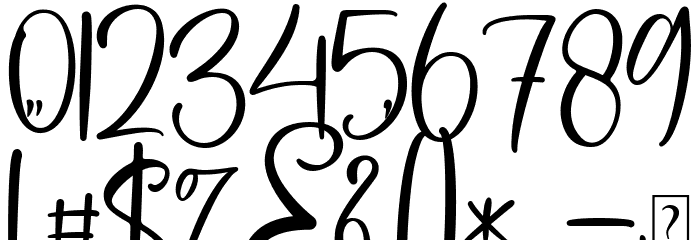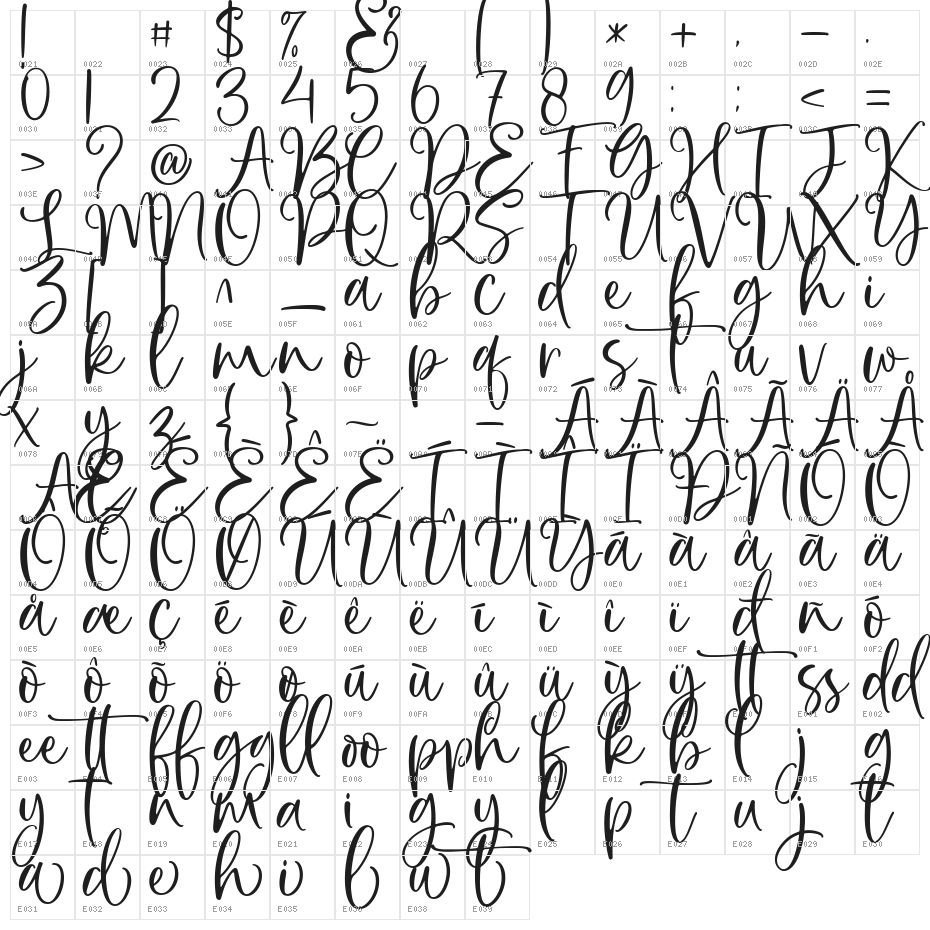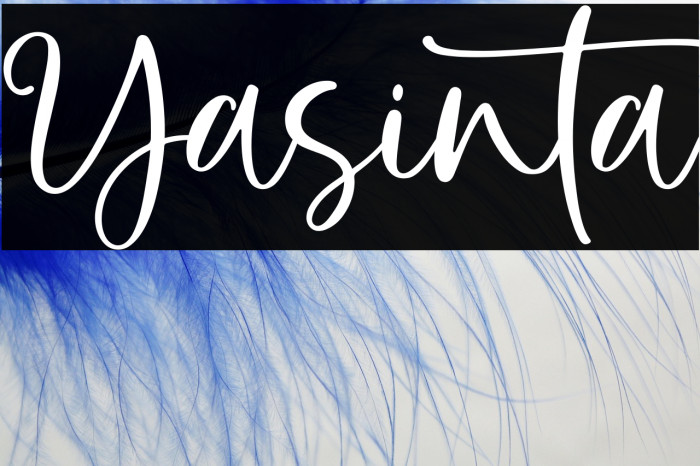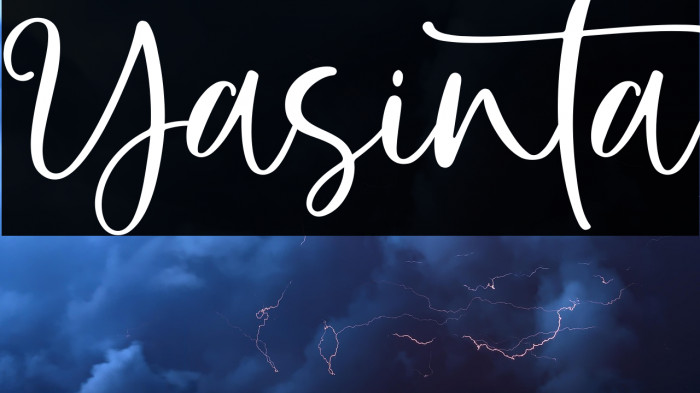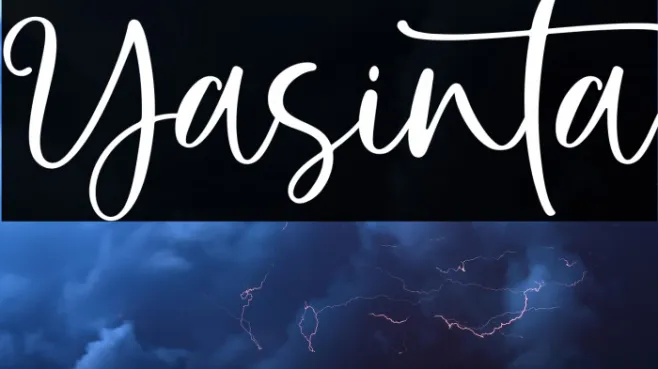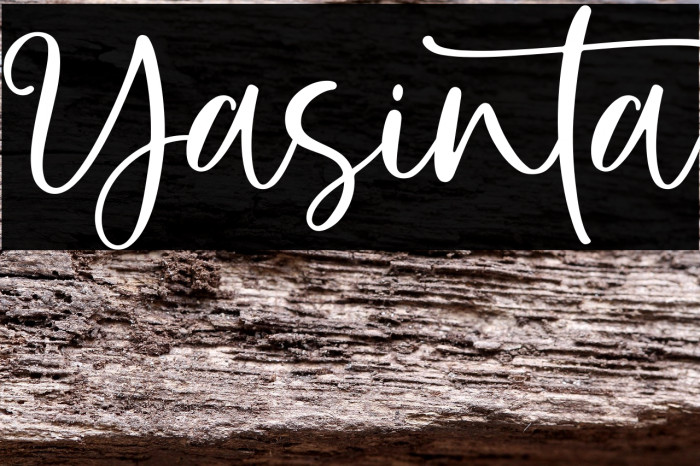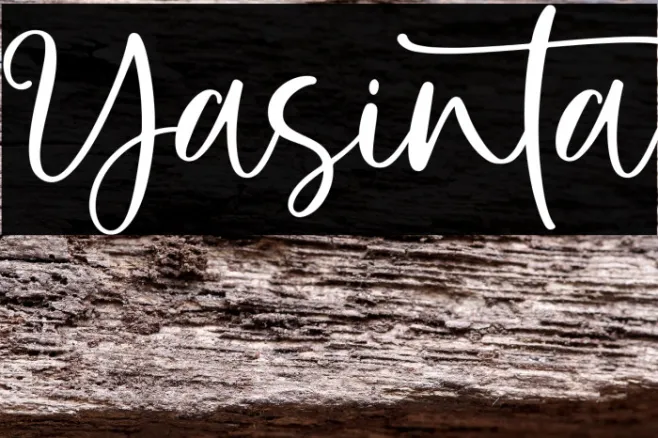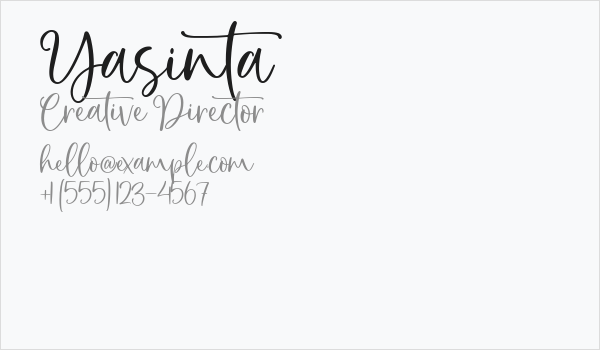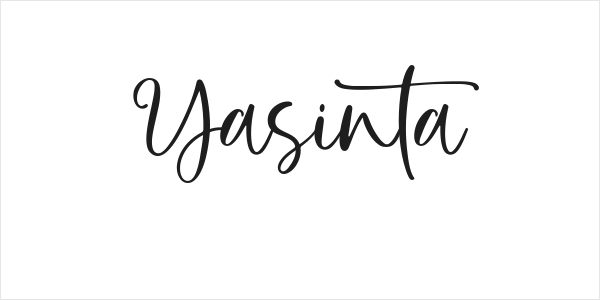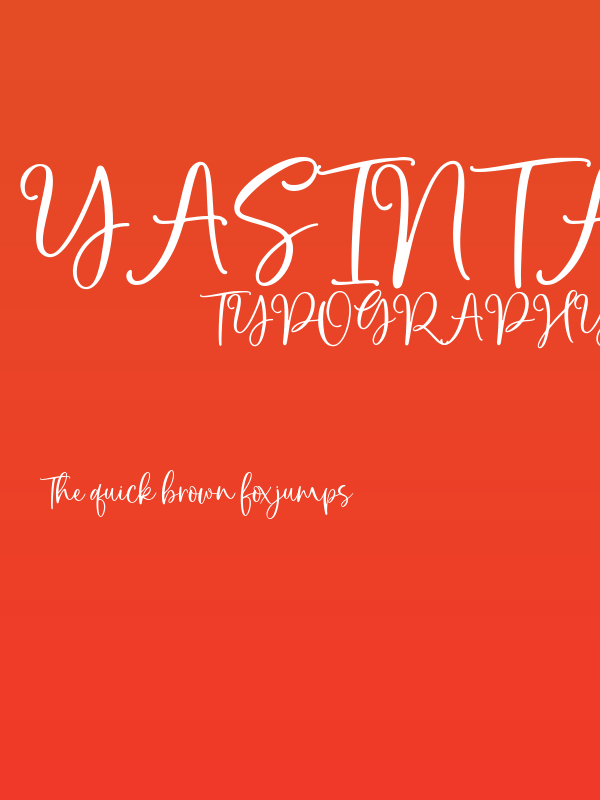
Yasinta Font
Yasinta Description
This font features a lively and expressive script style, characterized by its flowing, interconnected letters and elegant curves. The uppercase letters exhibit a graceful, looping design, while the lowercase letters maintain a consistent fluidity, enhancing the font's overall charm. The numerals are crafted with a similar flair, ensuring a cohesive look across all characters. Special characters are thoughtfully integrated, maintaining the font's whimsical and artistic appeal. The strokes are smooth and consistent, offering a sense of movement and dynamism. This font is perfect for projects that require a personal, handwritten touch.